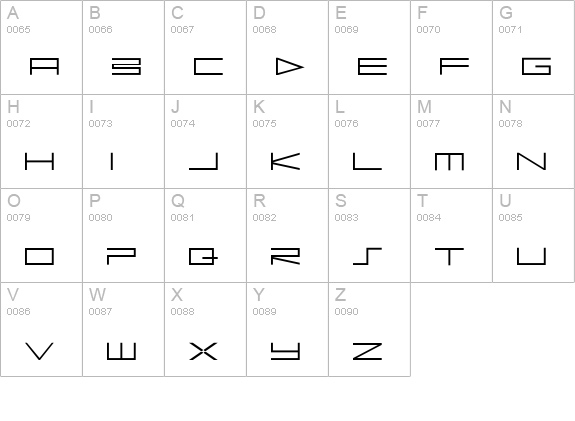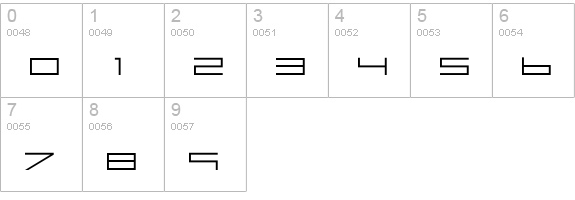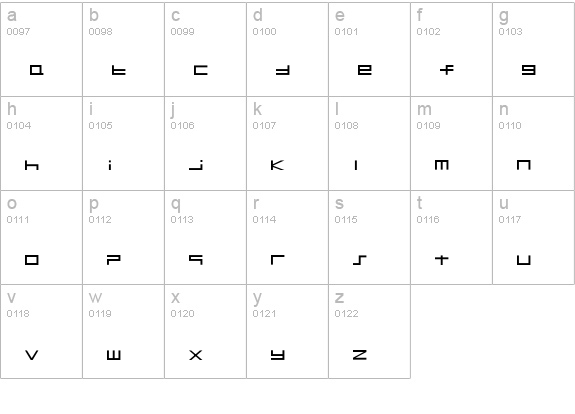
BTSE + PS2 FONT Font Details
Introducing the stunning BTSE + PS2 FONT font - a perfect combination of elegance and modernity. This unique font seamlessly blends the boldness of BTSE with the sleekness of PS2 FONT, resulting in a visually striking typeface that will elevate any design project. Whether you're creating a logo, branding materials, or social media graphics, this font is sure to make a lasting impression. The best part? This incredible font is completely free to download at FontsMarket.com. Don't miss out on the opportunity to enhance your designs with the BTSE + PS2 FONT font - download it today and let your creativity soar!